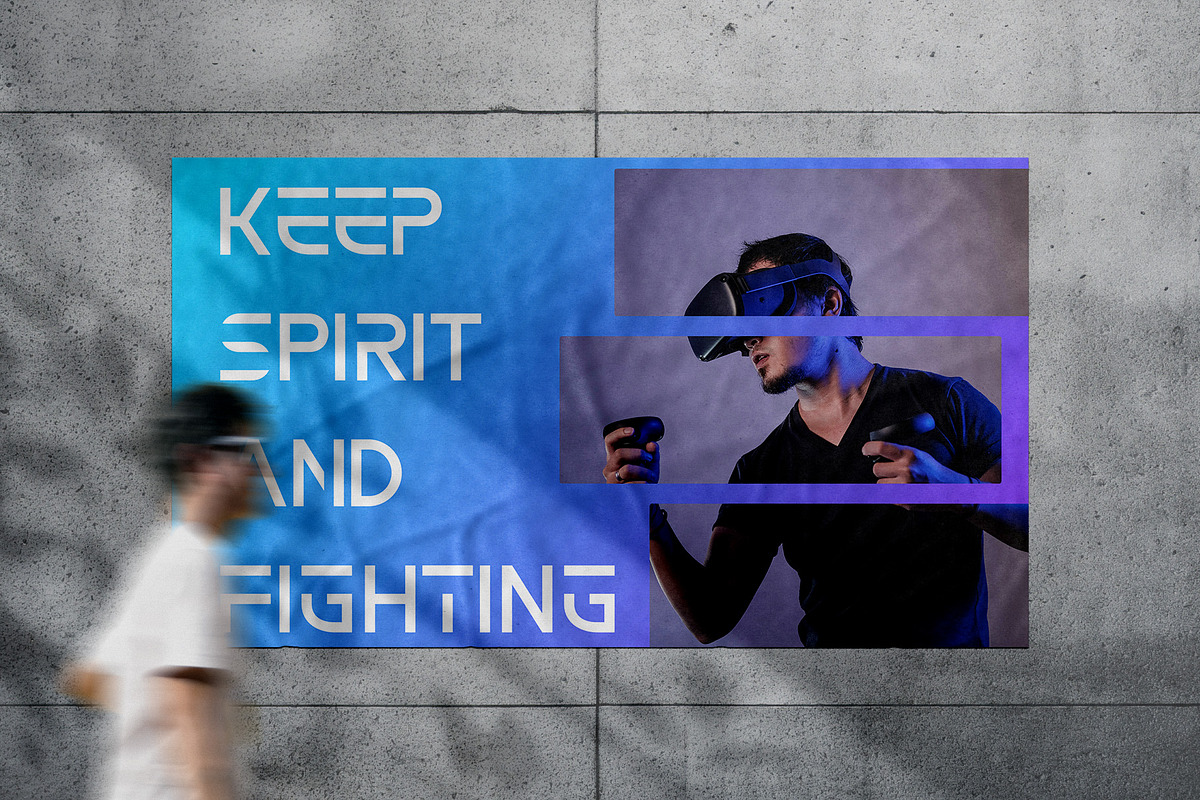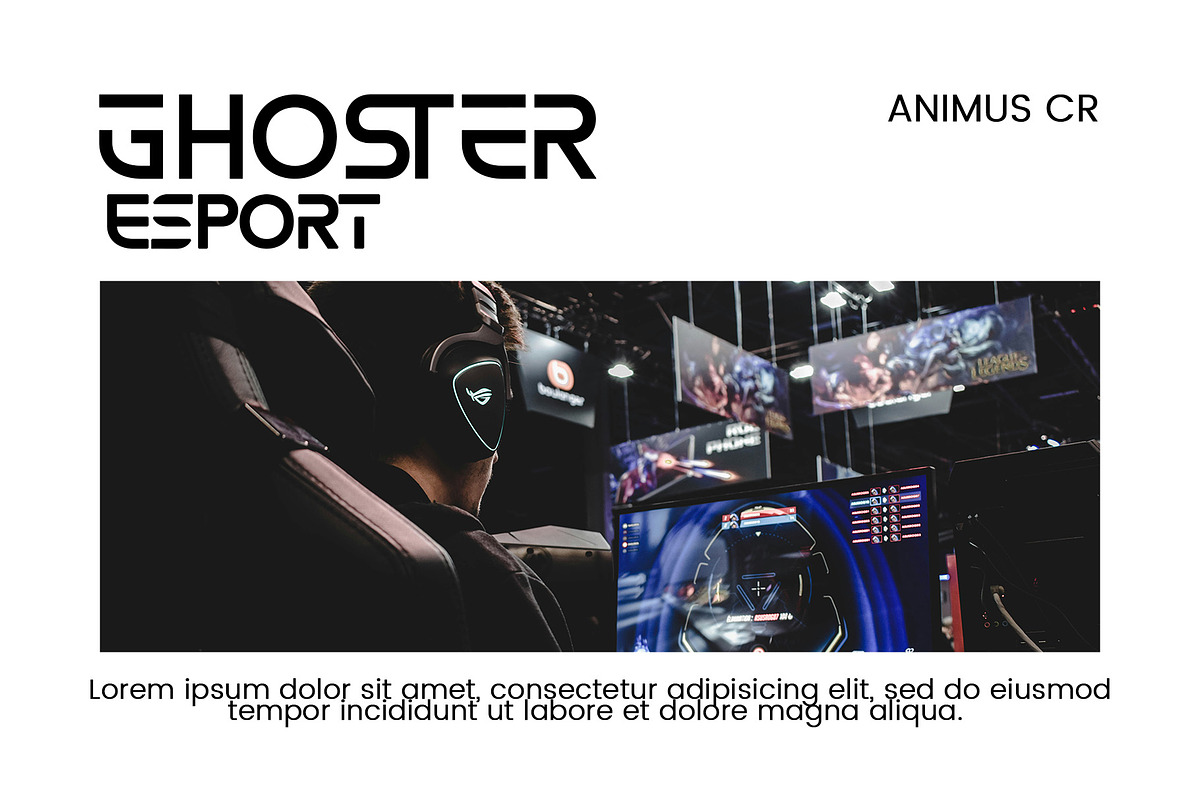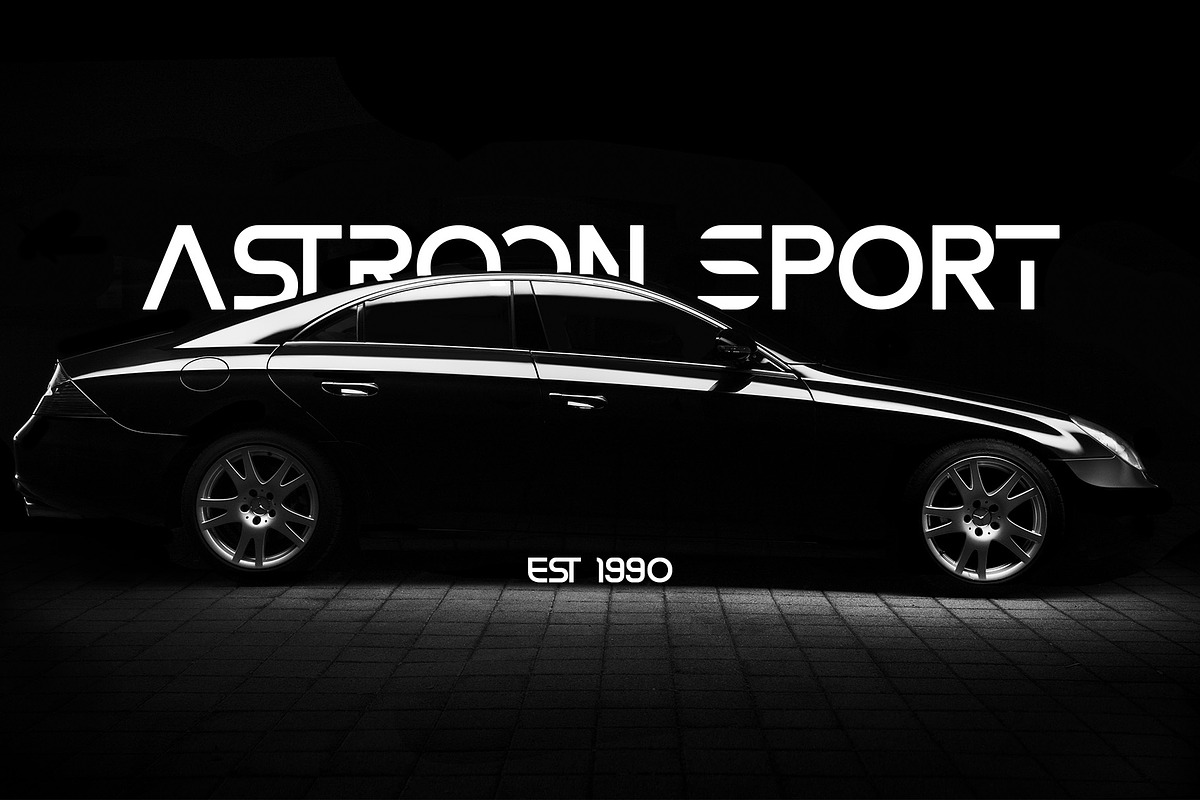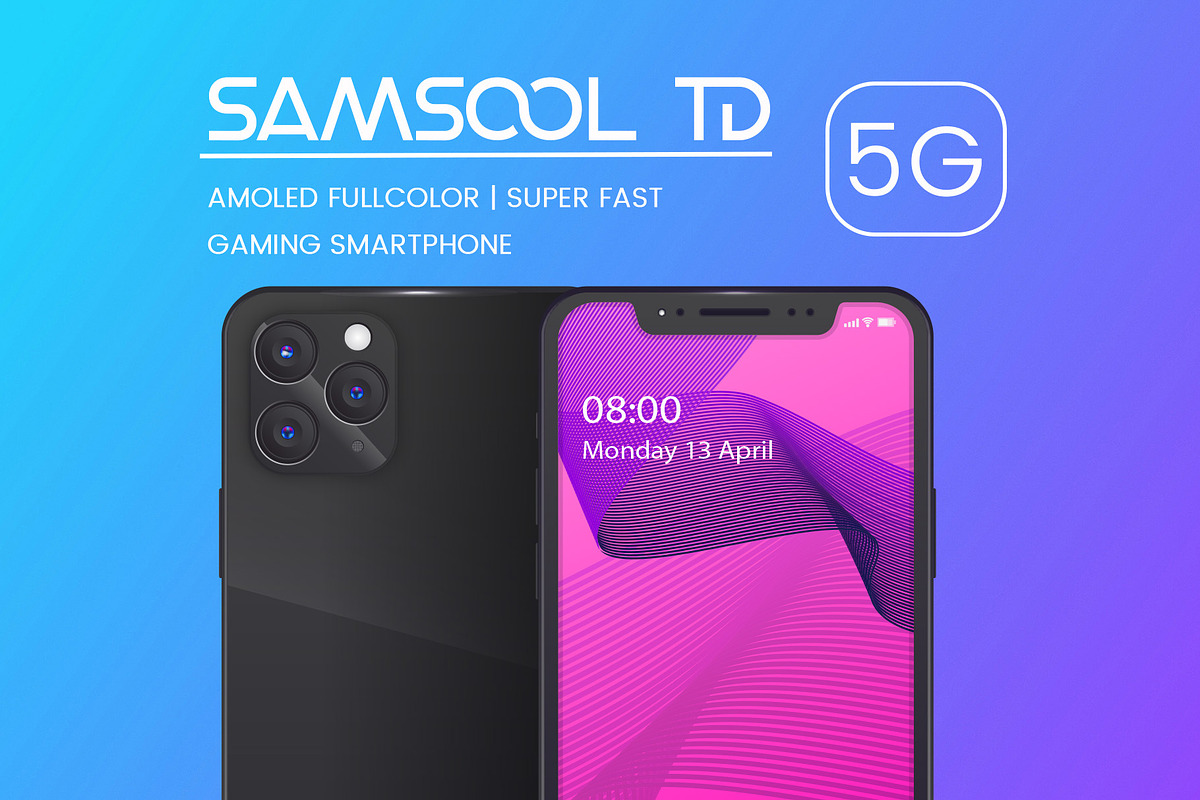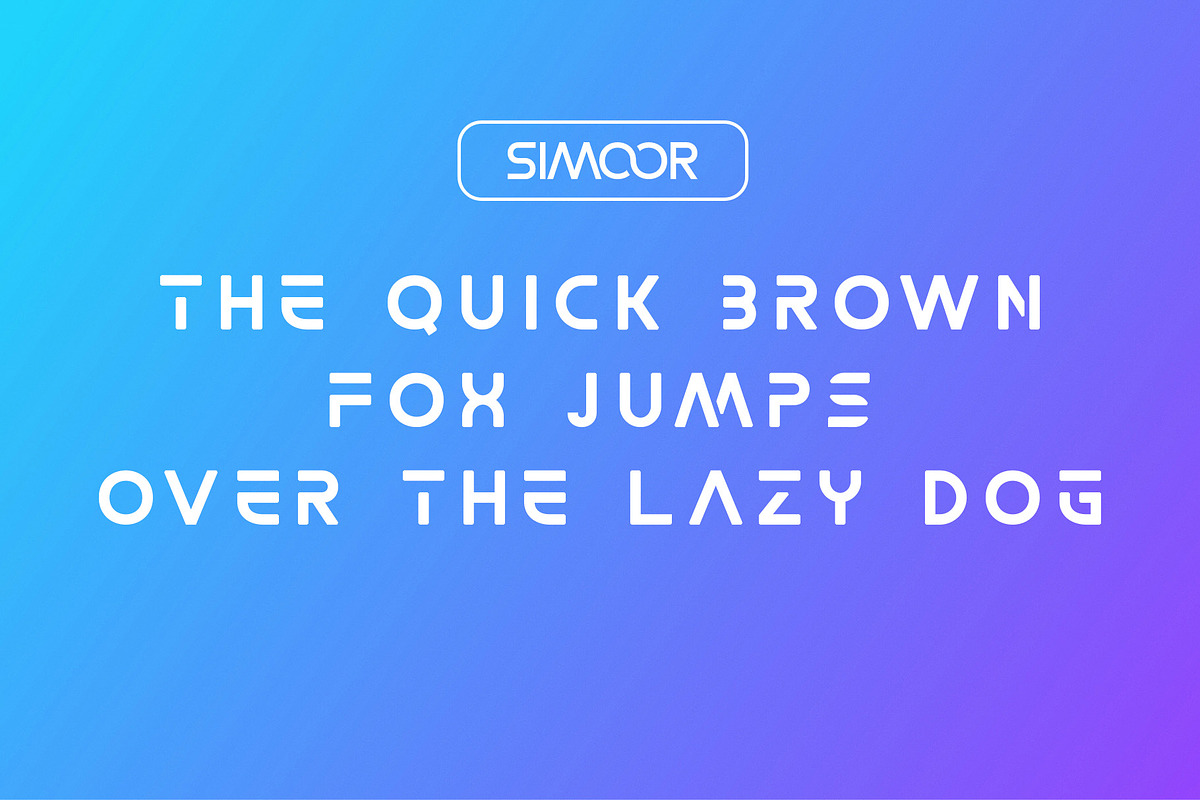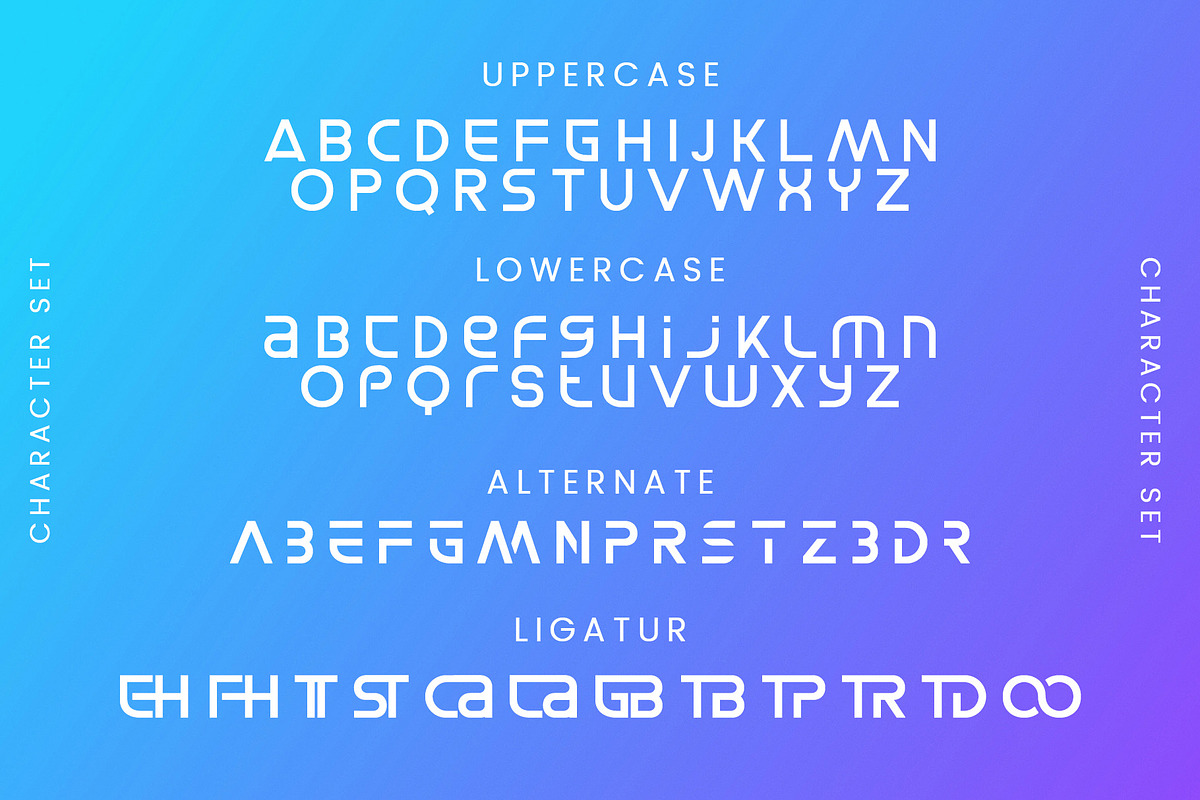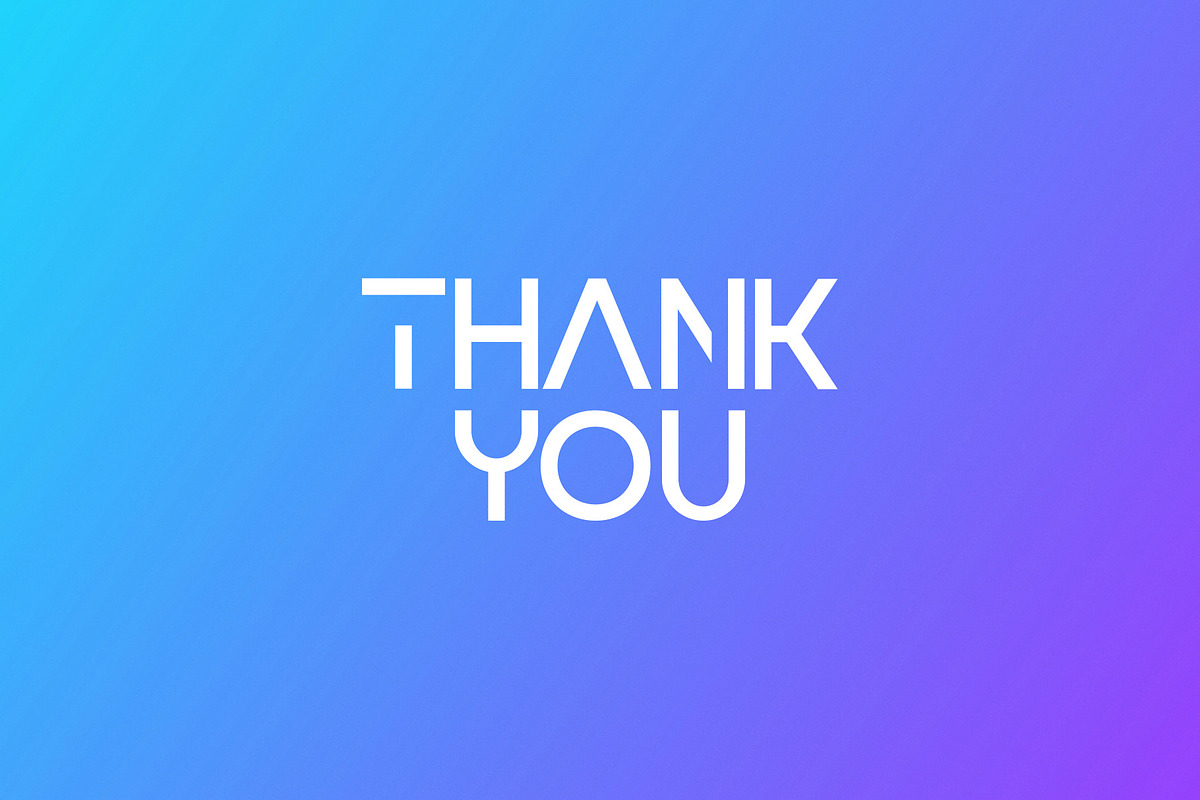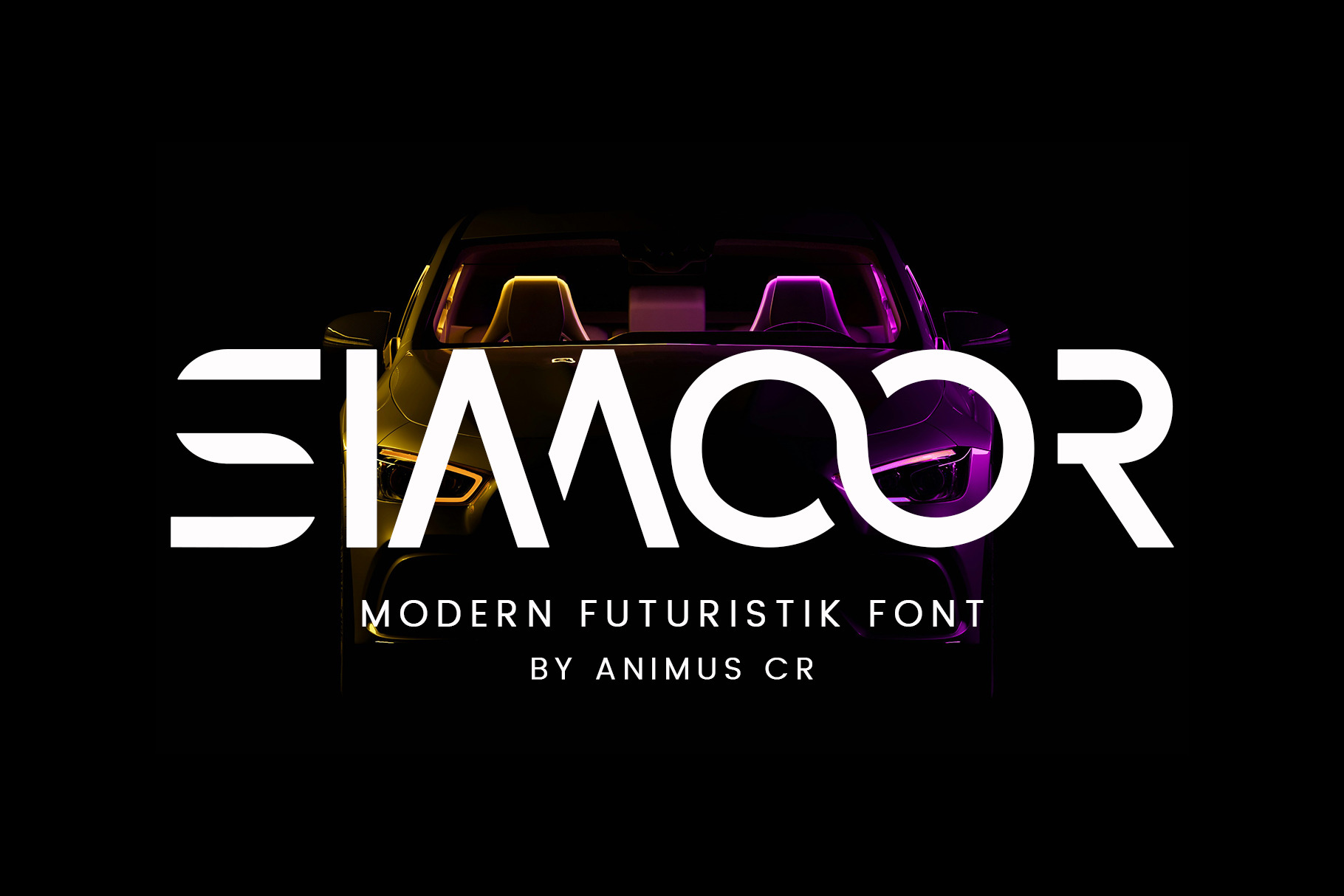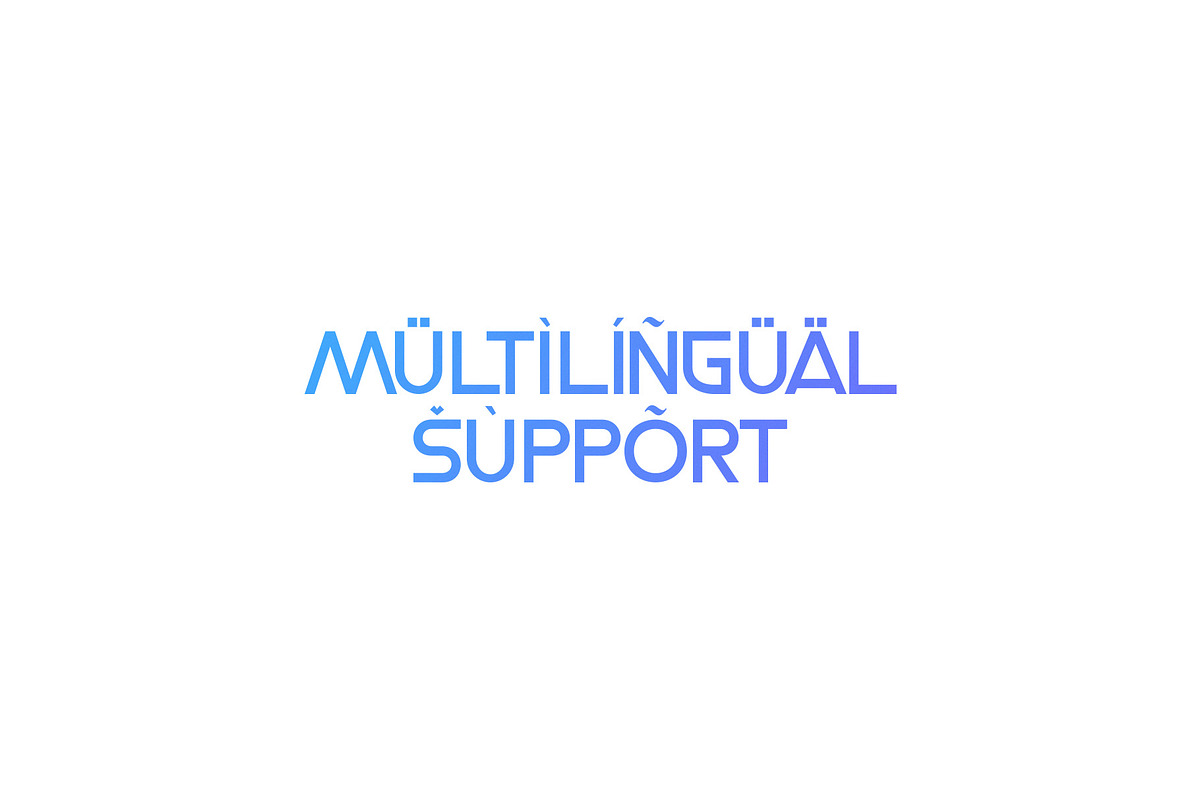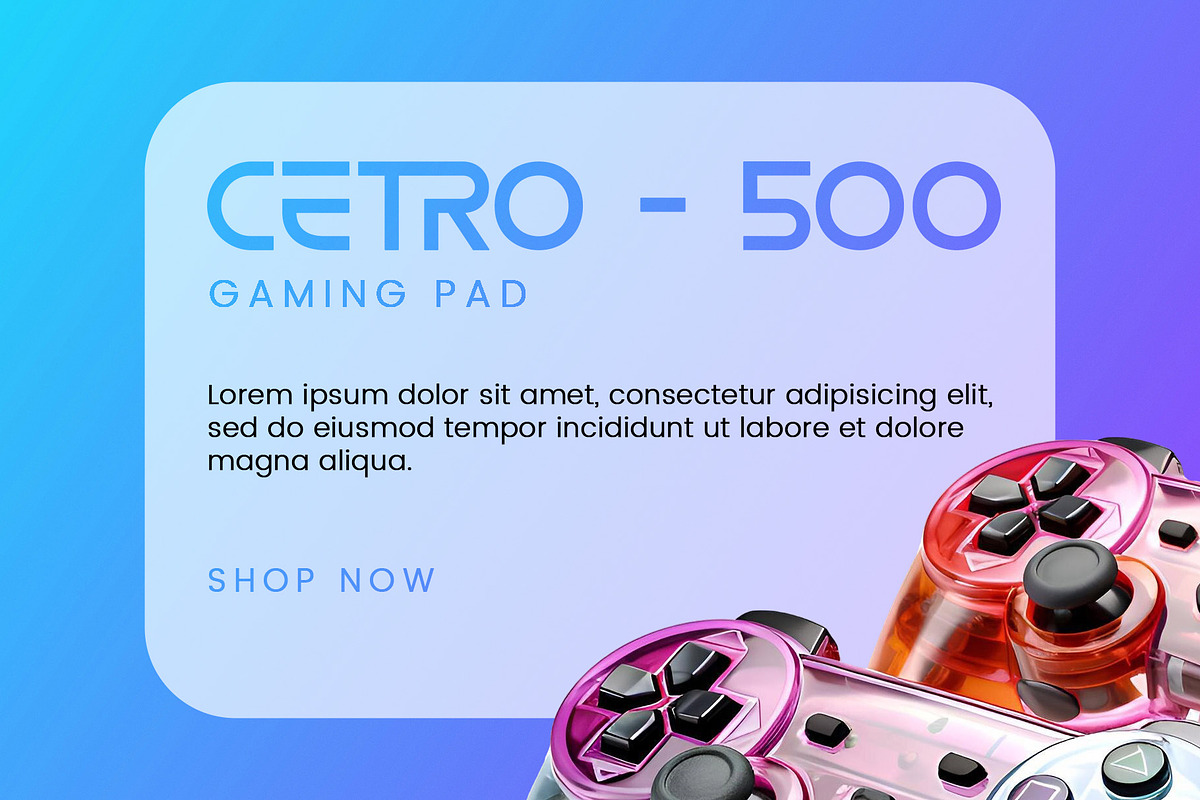
Simoor Modern Futuristik Font
Simoor Modern Futuristik Font is a font designed with a modern and minimalist style. It’s perfect for various design needs, such as logos , brochures, videos, advertising branding, posters, invitations, and More.
This font is the perfect choice to make your designs look professional and appealing.